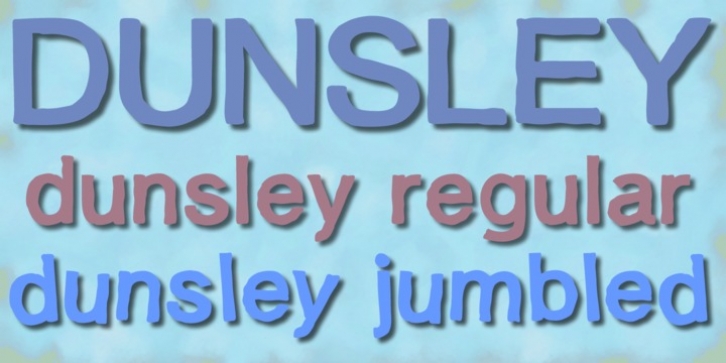
Dunsley is a roughly-drawn sans-serif typeface. At small sizes itís clear enough to use as small bodies of text, and in larger sizes the imperfections show and it’s ideal for headlines with a worn, degraded or misprinted look to them.
It has four main aspects: 1) conventional, 2) jumbled (where the characters are rotated around a little and moved up or down), 3) conventional with varying sized characters, and 4) jumbled with varying sized characters. These 4 types each have the 4 normal variants (Reg, Bold and their italic versions). There’s also some FX versions.
The Jumbled versions contain alternative double-letter pairings for aa-zz and AA-ZZ to avoid having 2 identical jumbled letters together, produced as Standard Ligatures in any program that supports OT features; the ordinary versions have fewer since the difference hardly shows in those styles.
In the FX category there is an Outline version, a 3-D version, and a Bevelled/Shadow version, each with the italic counterpart. There are also 2 small FX fonts containing just bullet numbers/circled numbers 0-9 which are included as extras in the zips for the FX Set and the Complete Set.
Dunsley contains a host of Open Type features as you'd expect, such as Class Kerning, Ligatures and more, plus extensive support for accented characters for European Languages and others.